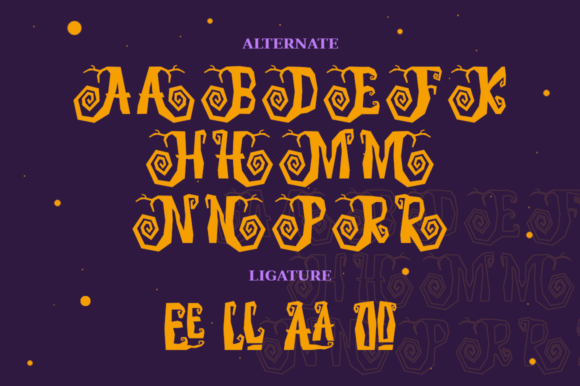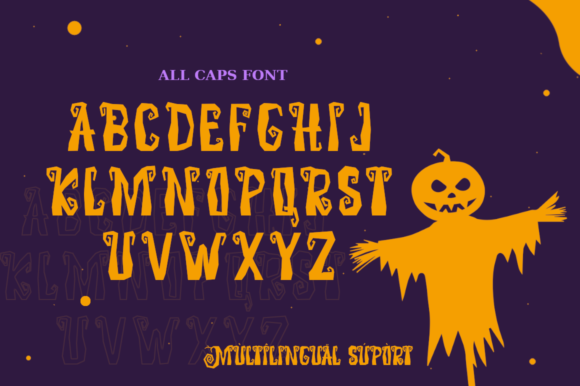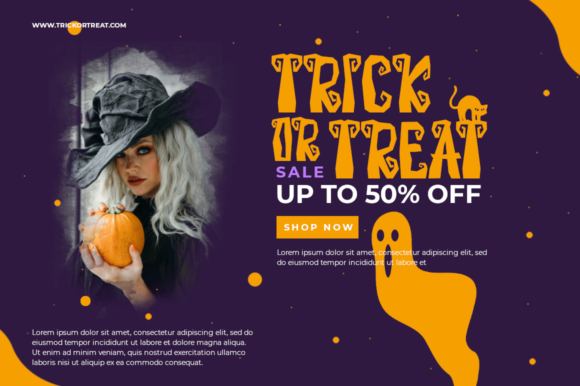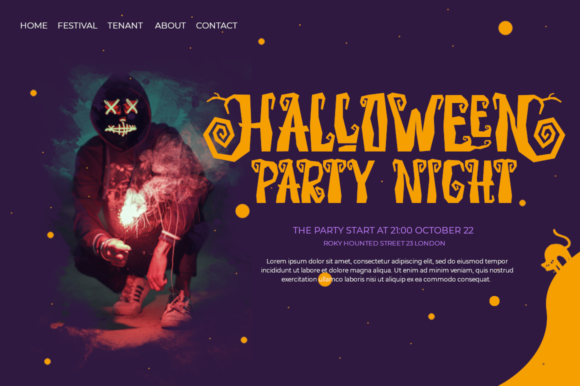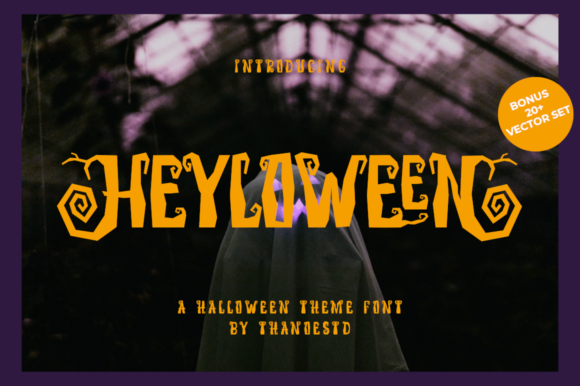
Introduction to Heyloween Font
Heyloween is a spooky and playful display font featuring a scary horror theme.
Add it to your Halloween crafts, horror movie posters, t-shirts and anything else that requires a spectacular look .